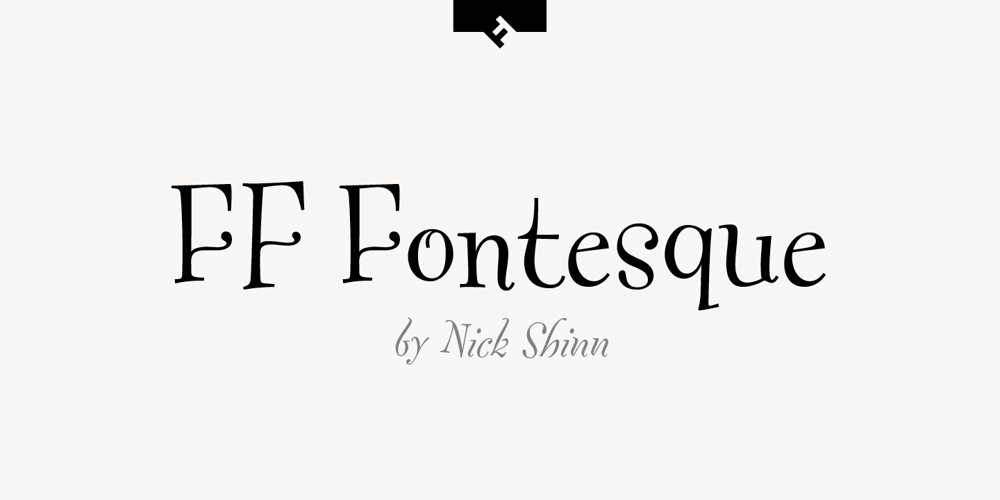
FF Fontesque
FF Fontesque font
FF Fontesque Font Family was designed by Nick Shinn and published by FontFont. FF Fontesque contains 16 styles and family package options. Canadian type designer Nick Shinn created this display, serif, and script FontFont between 1994 and 2010. The family has 16 weights, ranging from Light to Extra Bold (including italics) and is ideally suited for advertising and packaging, book text as well as festive occasions. FF Fontesque provides advanced typographical support with features such as ligatures, alternate characters, case-sensitive forms, and stylistic alternates. It comes with a complete range of figure set options – oldstyle and lining figures, each in tabular and proportional widths. As well as Latin-based languages, the typeface family also supports the Cyrillic writing system. This FontFont is a member of the FF Fontesque super family, which also includes FF Fontesque Sans.